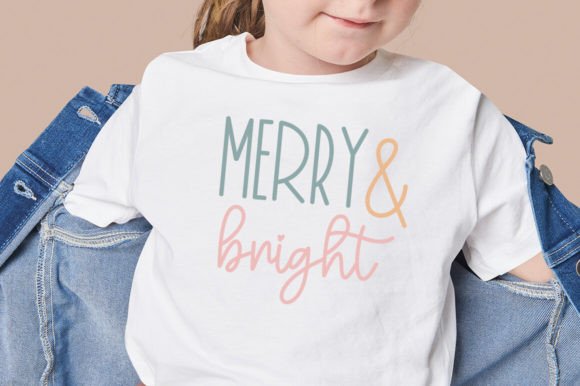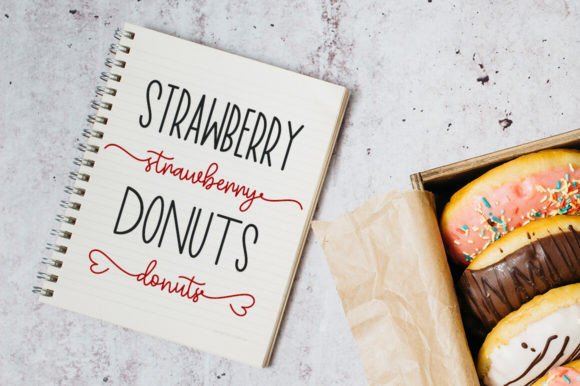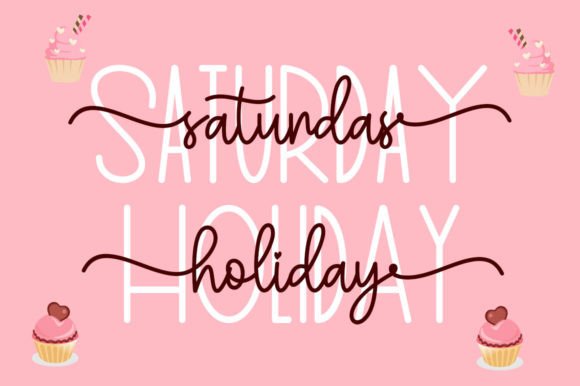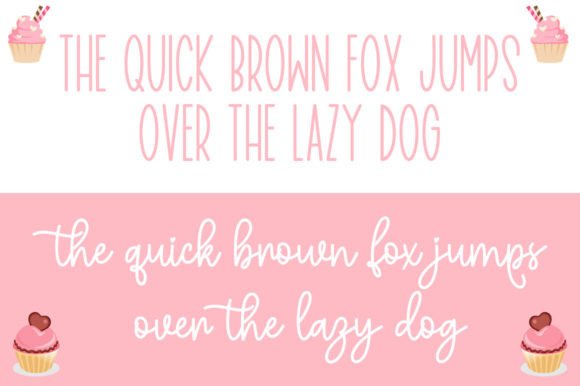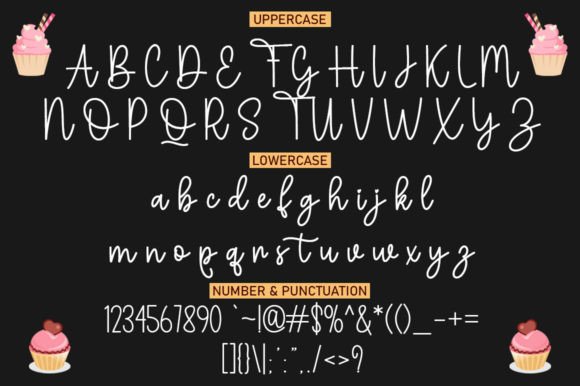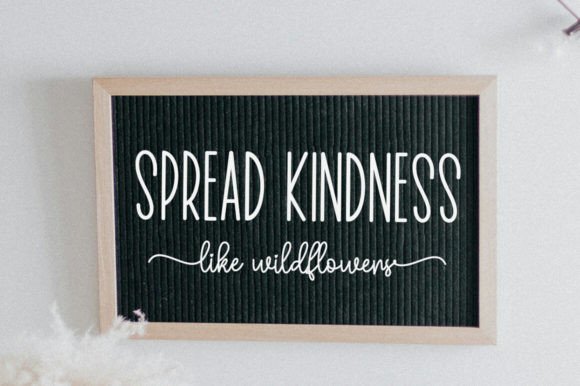
Cupcakes Sweet Duo Font: The Perfect Harmony of Elegance and Charm
Are you a designer or crafter looking for a font that can add a touch of romance and whimsy to your projects? Look no further than Cupcakes Sweet Duo Font, a beautiful dual font that combines the sophistication of sans serif and the allure of a script. This stunning typeface is perfect for creating endearing greeting cards, captivating headlines, and more.
The Beauty of Cupcakes Sweet Duo
Cupcakes Sweet Duo Font is a masterful blend of two complementary fonts that work together in harmony. The sans serif font provides a clean and modern base, while the script font adds a playful and romantic touch. This divine typeface is designed to bring a hint of elegance and charm to any design project, making it an irresistible choice for designers and crafters.
Key Features of Cupcakes Sweet Duo Font
- Dual Font**: Cupcakes Sweet Duo Font comes with two complementary fonts that can be used together to create a unique and captivating look.
- Seamless Integration**: The font’s design ensures seamless integration with any design canvas, merging typographic charm with functional brilliance.
- Romantic and Whimsical**: Cupcakes Sweet Duo Font is perfect for creating designs that require a touch of romance and whimsy.
Cupcakes Sweet Duo Font is an excellent choice for designers and crafters who want to add a personal touch to their projects. Whether you’re creating greeting cards, invitations, or social media graphics, this font is sure to impress. The dual font feature allows you to experiment with different combinations, making it easy to find the perfect look for your project.
Use Cases for Cupcakes Sweet Duo Font
- Greeting Cards**: Create beautiful and endearing greeting cards for special occasions like weddings, birthdays, and anniversaries.
- Headlines**: Use Cupcakes Sweet Duo Font to create captivating headlines for your blog posts, social media graphics, or advertisements.
- Invitations**: Design elegant and charming invitations for parties, baby showers, or other events.
- Social Media Graphics**: Add a touch of romance and whimsy to your social media graphics, such as Instagram posts or Facebook covers.
Why Choose Cupcakes Sweet Duo Font?
With so many fonts available, why choose Cupcakes Sweet Duo Font? Here are a few reasons:
- Unique and Versatile**: This dual font combination is unique and versatile, making it perfect for a wide range of design projects.
- Elegant and Charming**: Cupcakes Sweet Duo Font adds a touch of elegance and charm to any design, making it perfect for projects that require a personal touch.